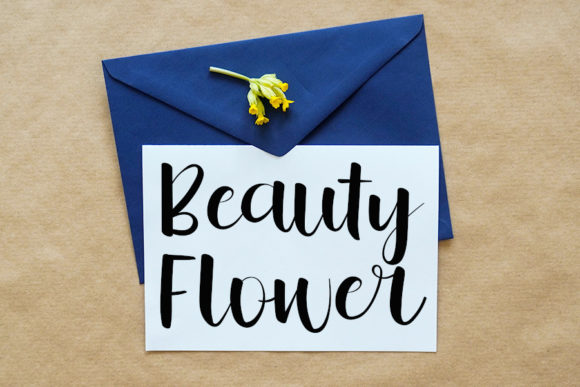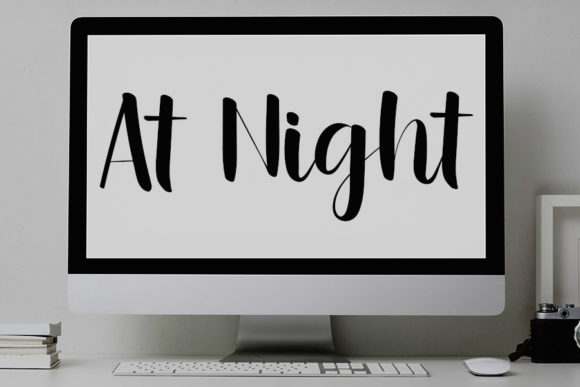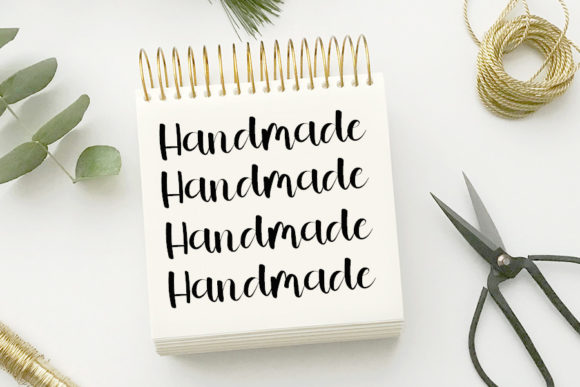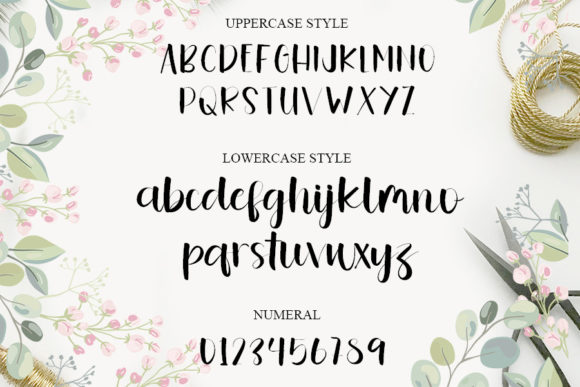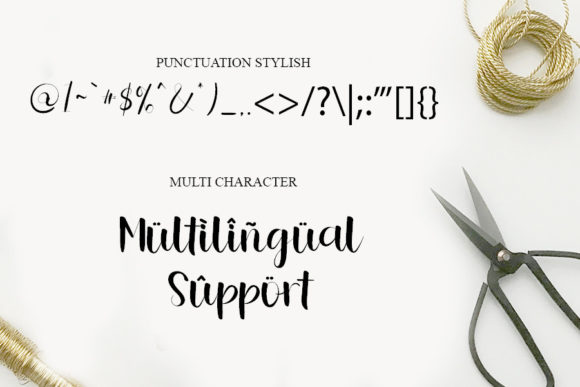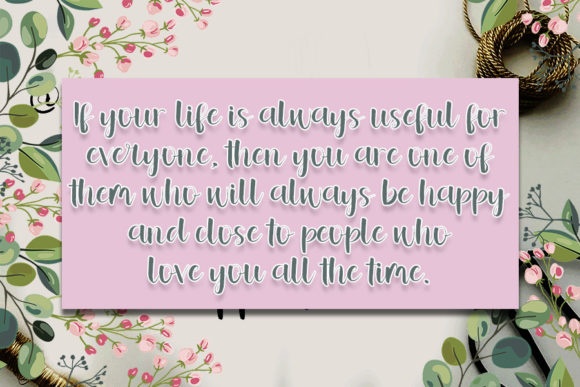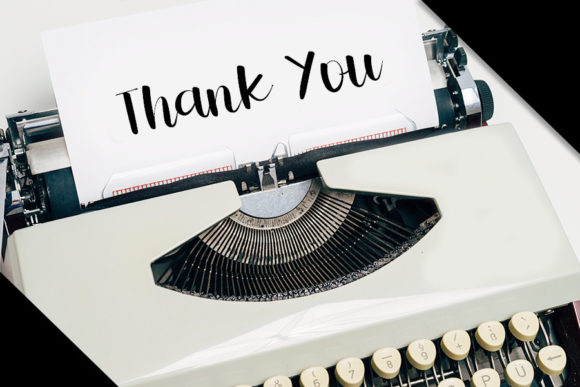
The Spring Font
The Spring is a joyful handwritten font. Clean and a little bit quirky, this font is the perfect fit for all of your logos, branding, social media, and crafty DIY projects.